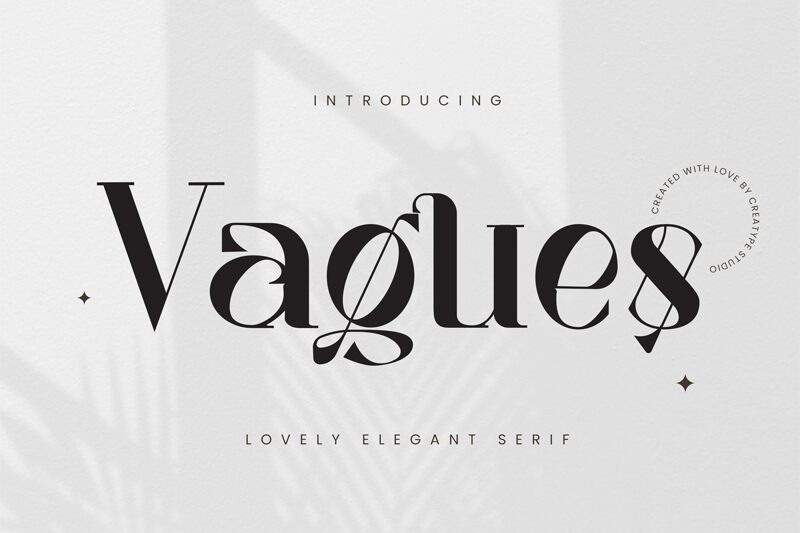
Vagues
Vagues font by Creatype Studio is an elegant serif font that brings sophistication and modern style to the design. The typeface features a perfect balance between classic influences and ornamental flair which is precisely what attracts attention at first sight.
Branding, packaging, posters, apparel, fashion magazines covers or headlines are only some of Vagues’ applications. The free serif font can also be used for logotypes ideas or final pitches that need readable uniqueness.